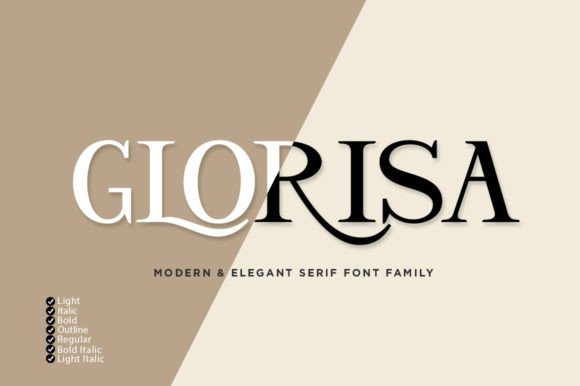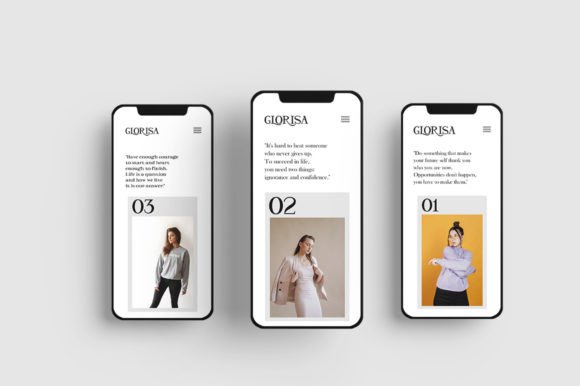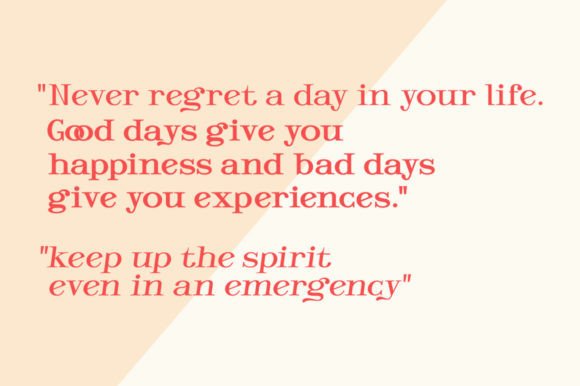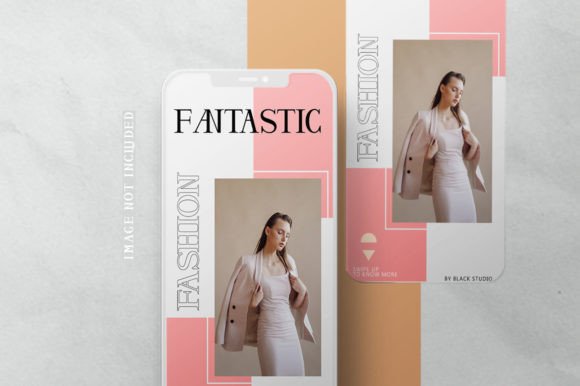
Glorisa Font: Elegant Serif for Modern Branding & Logo Design
About the Glorisa Font
Introducing the Glorisa Font, a beautifully crafted typeface designed to elevate your creative projects. Glorisa is an elegant serif font that will add a touch of luxury and style to your projects. This is a versatile typeface that works well in large and small sizes. Perfect for editorial projects, magazine headers, logo designs, branding, product packaging, and showcasing masculine and feminine qualities.
Glorisa’s elegant serifs shine in headlines, logos, and short-form text on packaging or invitations. Its refined nature makes it ideal for brands conveying luxury or sophistication – think high-end cosmetics or bespoke tailoring. Avoid using Glorisa for extended body copy; its detailing can become visually overwhelming in smaller sizes or lengthy paragraphs.
Pairing Glorisa effectively requires considering its inherent elegance. A clean sans-serif like Montserrat or Open Sans provides a strong, modern counterpoint for body text, maintaining readability without clashing. For a more playful feel, consider a rounded sans-serif like Lato, while a script font such as Great Vibes adds a touch of vintage charm, best used sparingly.
The font exudes a classic elegance with a subtle hint of modern sophistication. Its personality is best described as refined and timeless, making it unsuitable for projects requiring a bold or playful aesthetic.
Glorisa Font Usage Examples
Glorisa Font Example